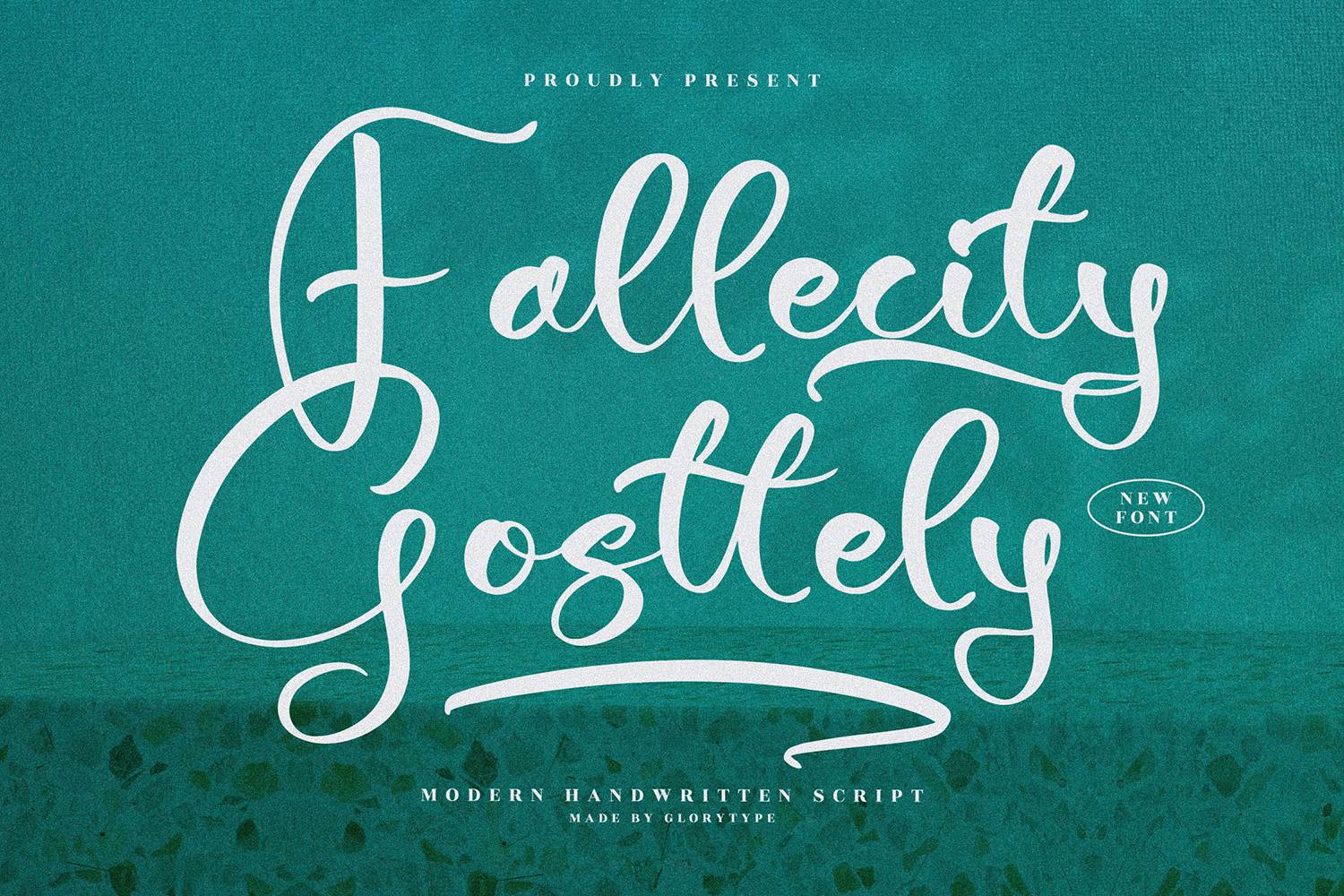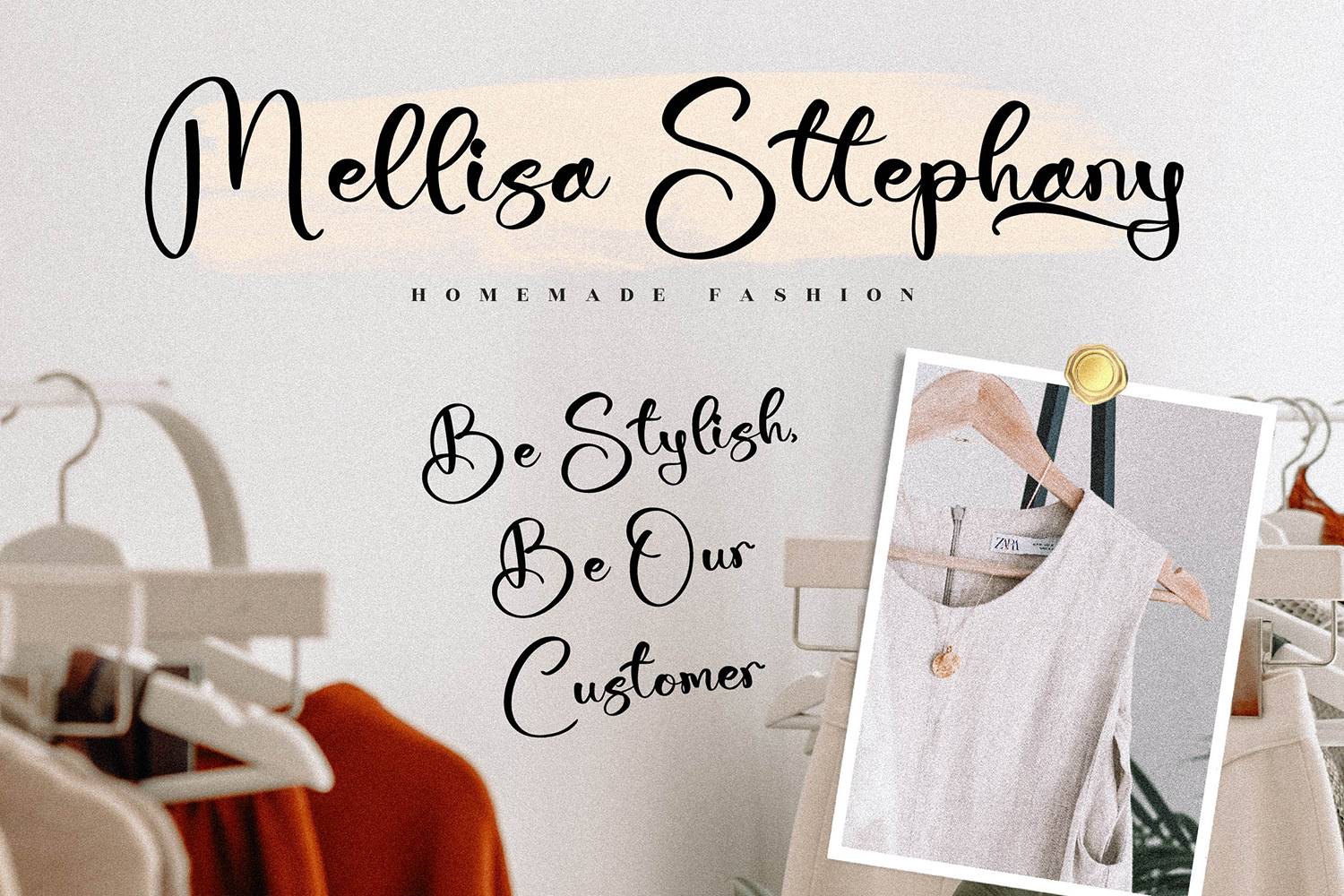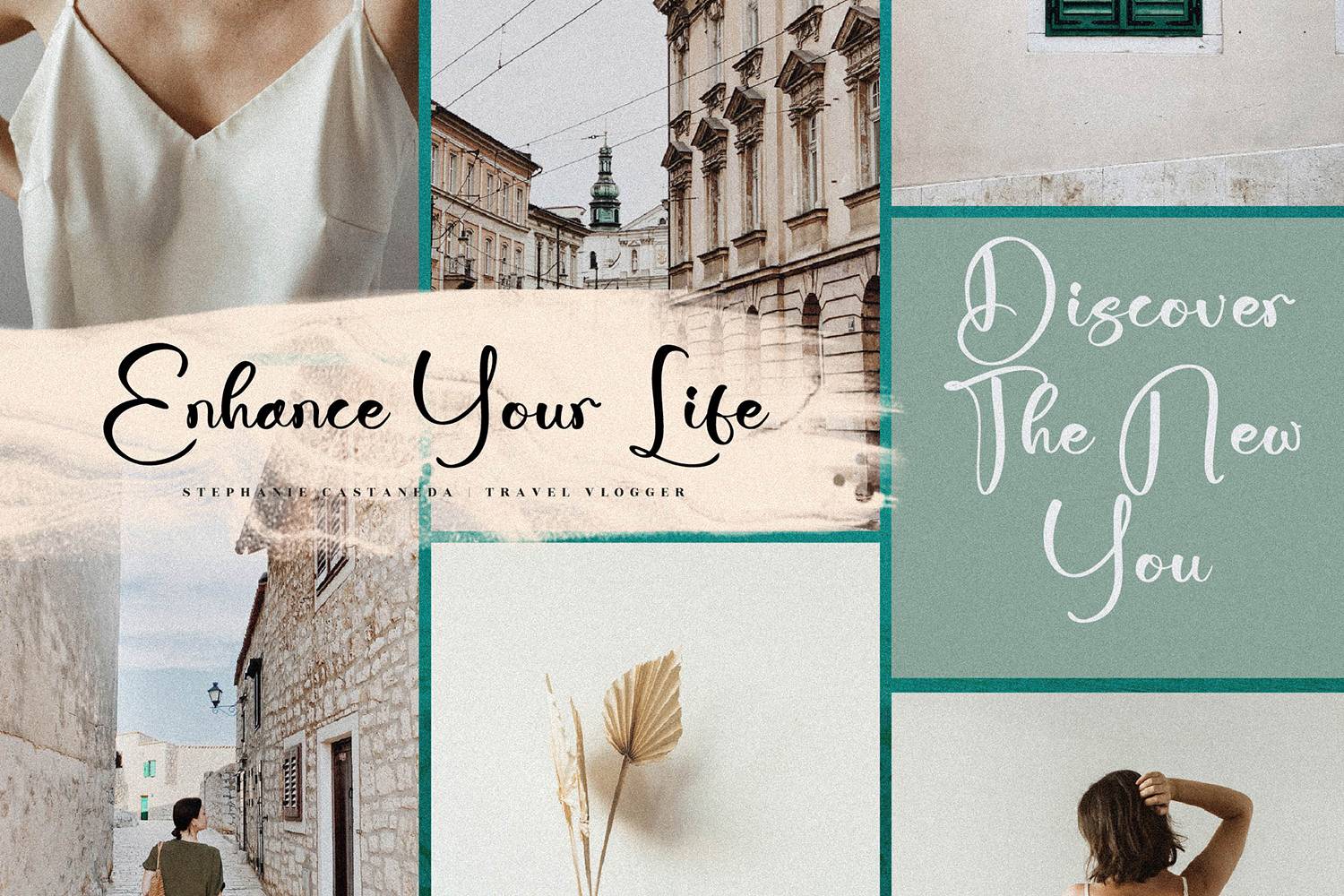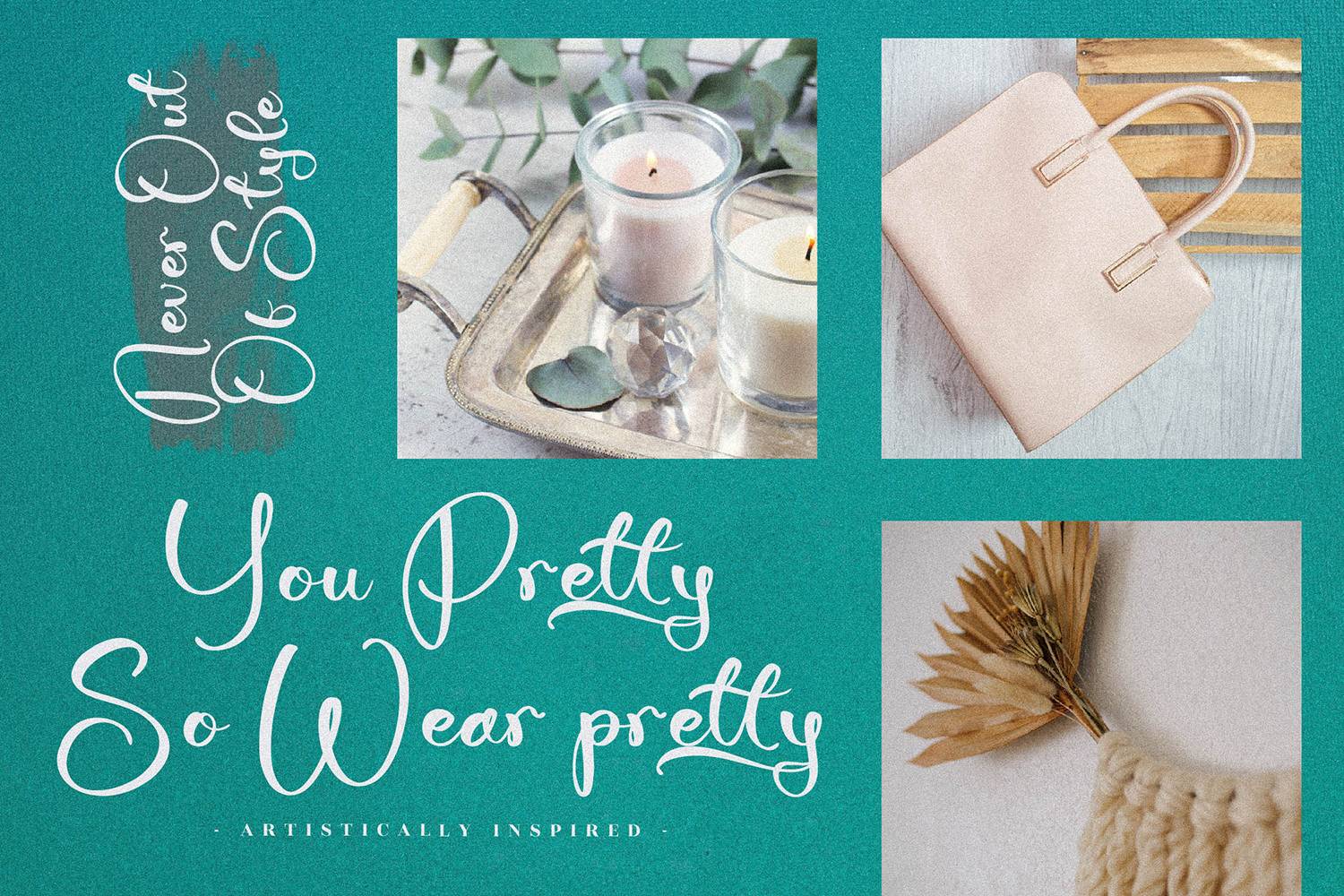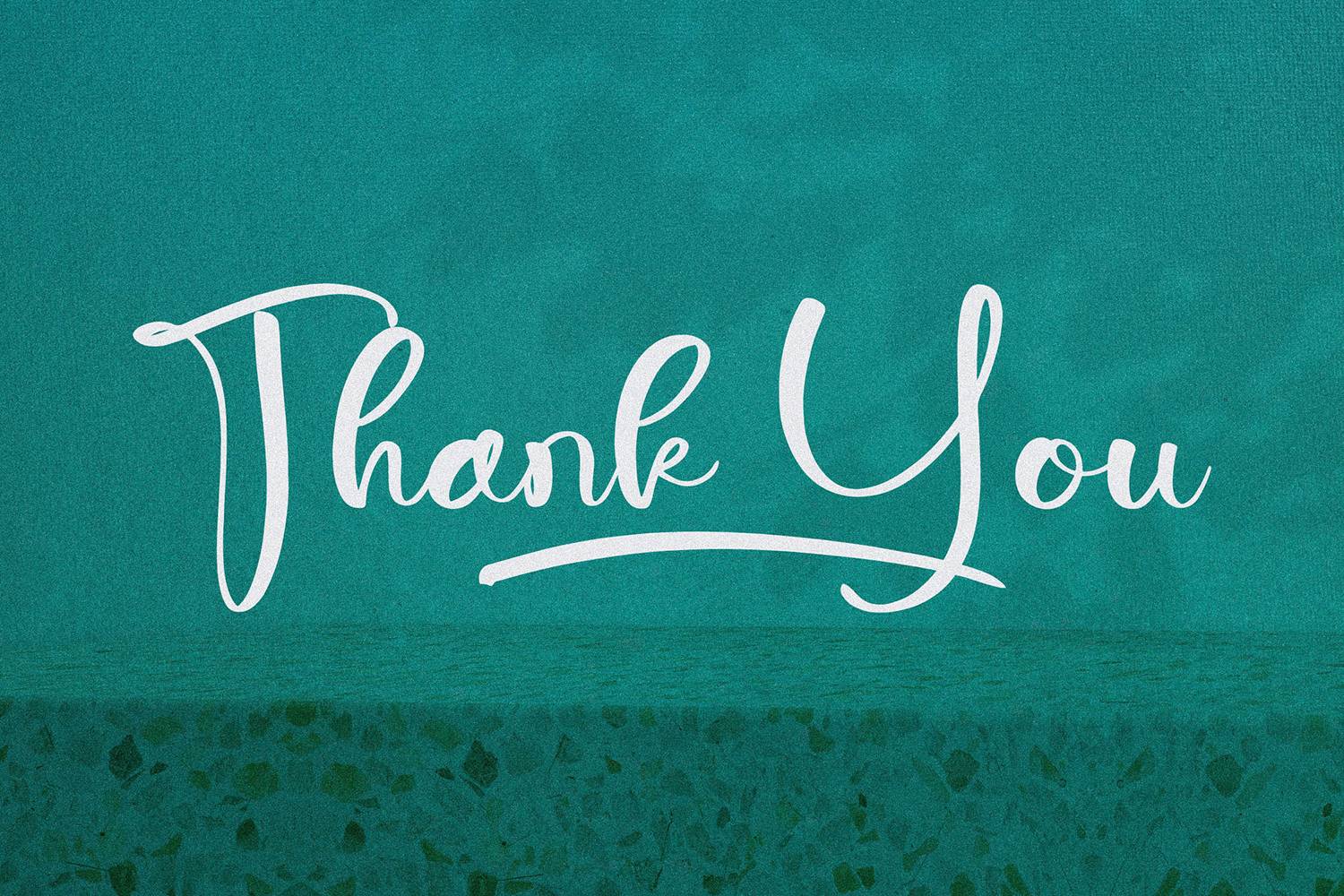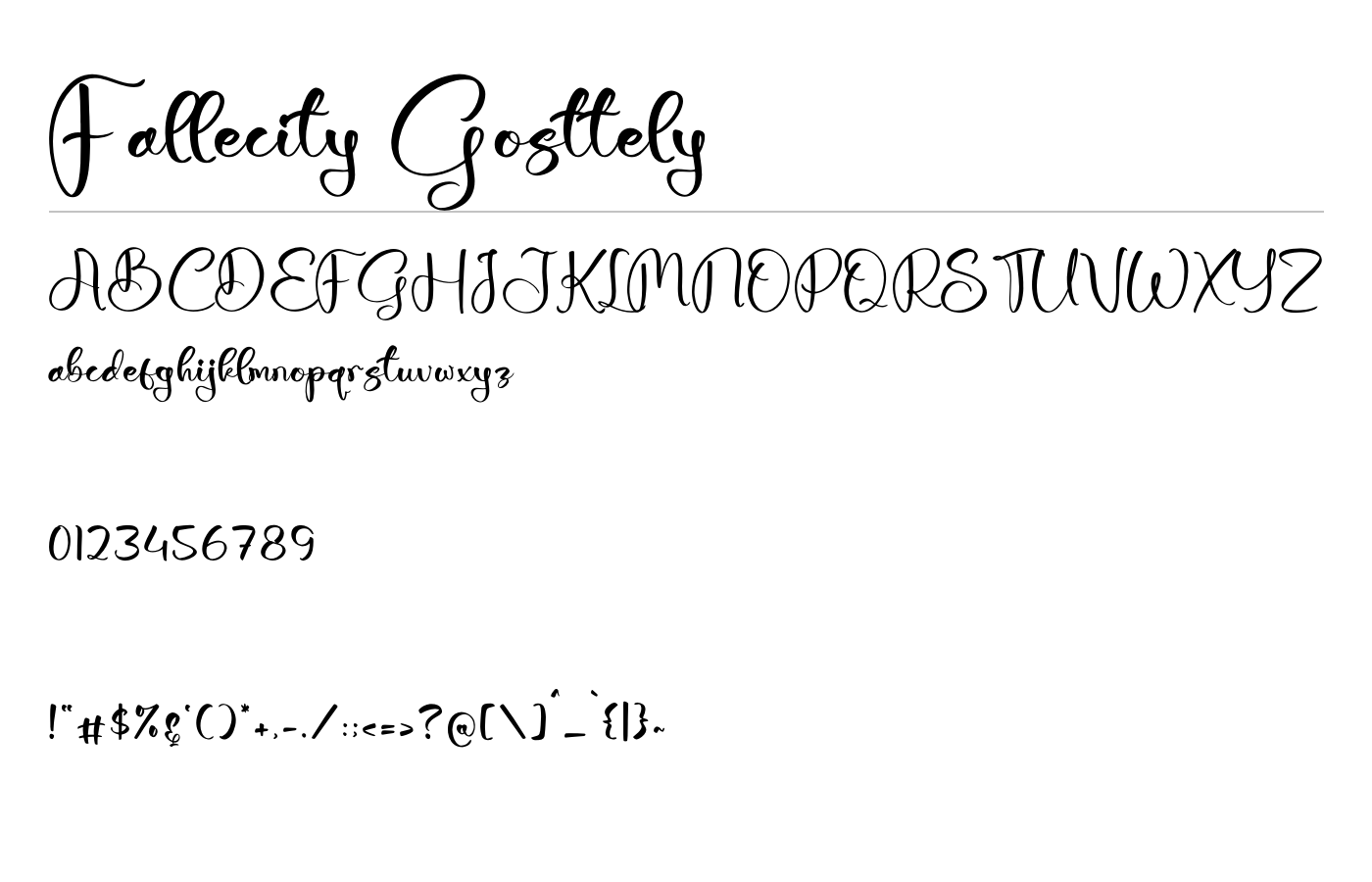
Fallecity Gosttely is a playful, hand-drawn script font with a delicate and whimsical feel. Its tall, narrow letterforms and smooth, flowing curves give it a lively yet elegant personality, making it perfect for creative, feminine, or casual branding projects. This font works well for invitations, logos, and decorative headlines where a unique, charming style is desired.
Fallecity Gosttely Font
About Fallecity Gosttely Font